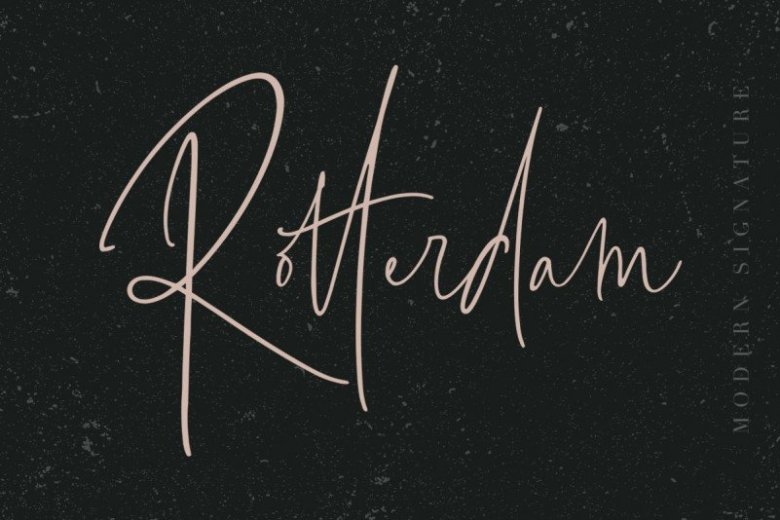
Rotterdam Signature Font
Hi Ladies and Gentleman ! Continue to be a great free font package, Introducing Rotterdam Signature Font! A lovely Signature font. It’s designed and shared by dharmas. This font combines stylish letter shapes with contemporary twist. It’s the perfect fit for all luxury projects, such as elegant logos, printed quotes, lovely wedding invitation cards, social media headers, product packaging and a lot more! It includes full set of elegant uppercase and lowercase letters, multilingual symbols, numerals, punctuation. The font has smooth wet ink texture, so would be perfect for all types of printing techniques+you can do embroidery, laser cut, gold foil etc.